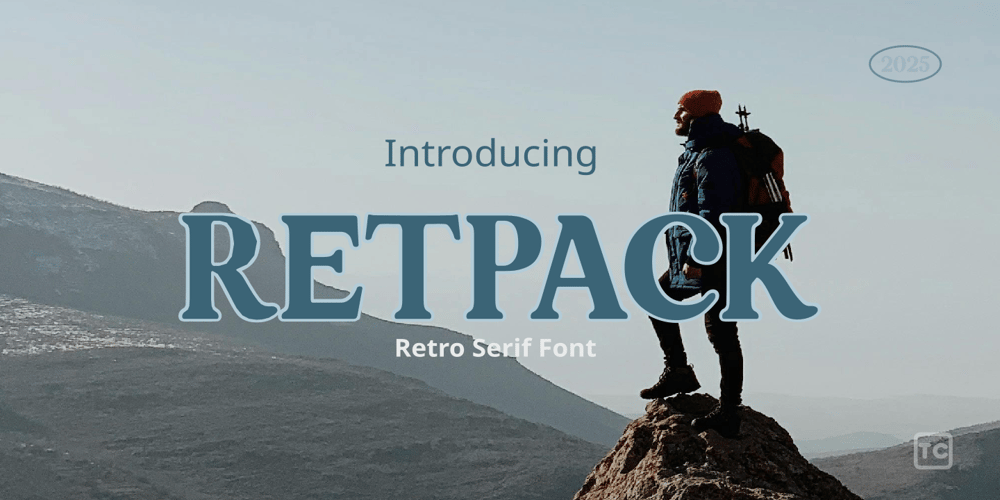
Retpack
Retpack font
Retpack Font Family was designed by published by Tubet Creative. Retpack contains 1 styles and family package options. “Retpack” is a bold font that exudes an old-school charm, reminiscent of vintage signage and classic typography from the mid-20th century. Its sturdy, exaggerated letterforms and slightly rounded edges evoke a sense of nostalgia, making it ideal for projects that seek to capture a retro aesthetic. The font’s strong presence commands attention while maintaining a friendly, approachable vibe, making it perfect for branding, posters, and any design that aims to celebrate the past with a modern twist. Whether used in headings or logos, Retpack delivers a distinctive flair that is both timeless and trendy.